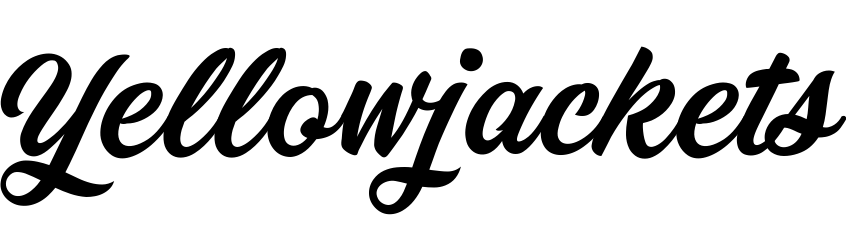
Yellowjackets (TV series) Font
DramaYellowjackets is a television series that chronicles the struggles of a team of soccer players who are the unlucky survivors of a plane crash in the remote wilderness of Canada.
The title of the TV series seems to be designed based on a font similar to Corner Store JF by Jason Walcott. The Corner Store font is a vintage-inspired script that captures the essence of hand-lettered signs found on traditional store fronts.